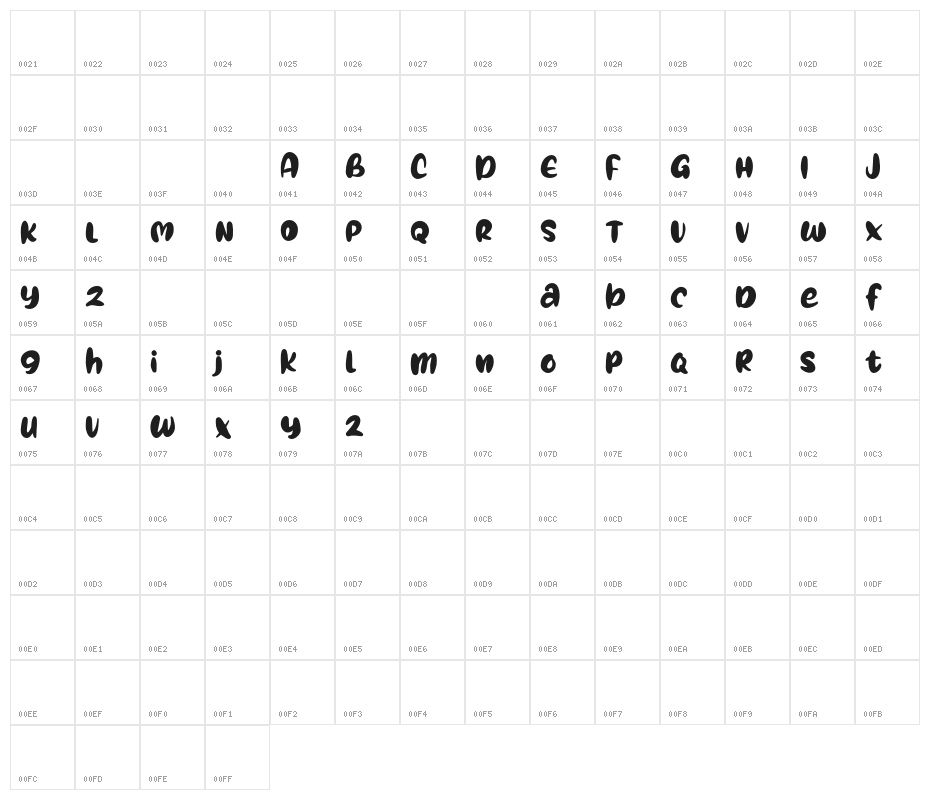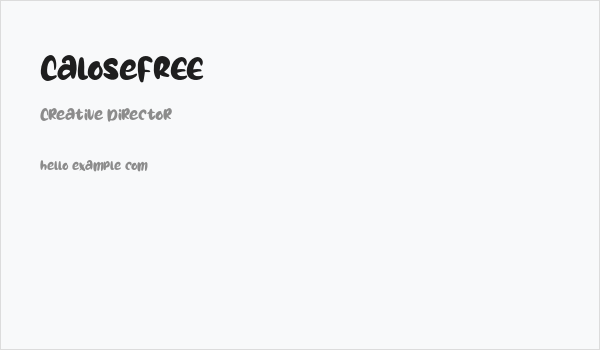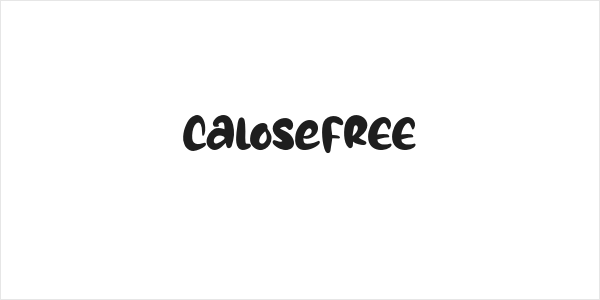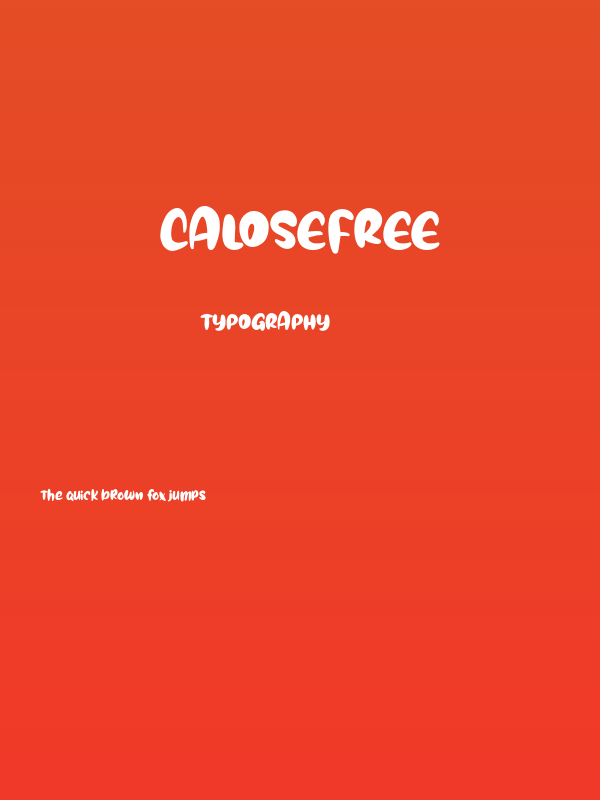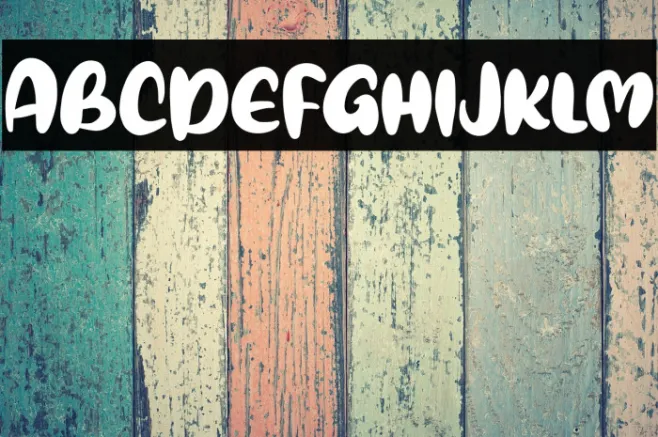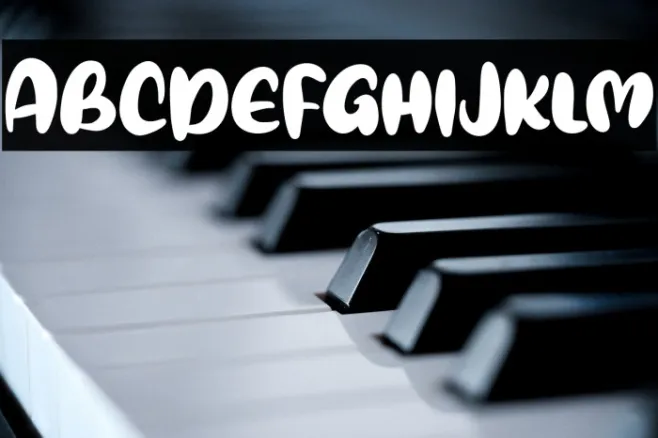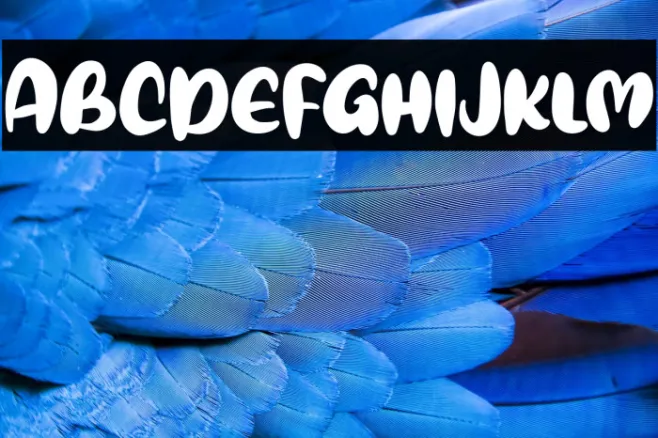
CaloseFREE Font
CaloseFREE Description
This font features bold, rounded characters with a playful and energetic style. The letters are thick and have a consistent stroke width, giving them a strong presence. The rounded edges and smooth curves create a friendly and approachable look, making it suitable for informal and fun designs. The font maintains a uniform weight throughout, ensuring readability while adding a touch of whimsy. Its unique style is characterized by a slightly condensed width, which allows for efficient use of space without compromising legibility. The font's design is modern and versatile, making it ideal for a variety of creative projects.
| Overall Style | Playful, Modern |
| Proposed Projects | Ideal for children's books, playful branding, posters, and social media graphics. |